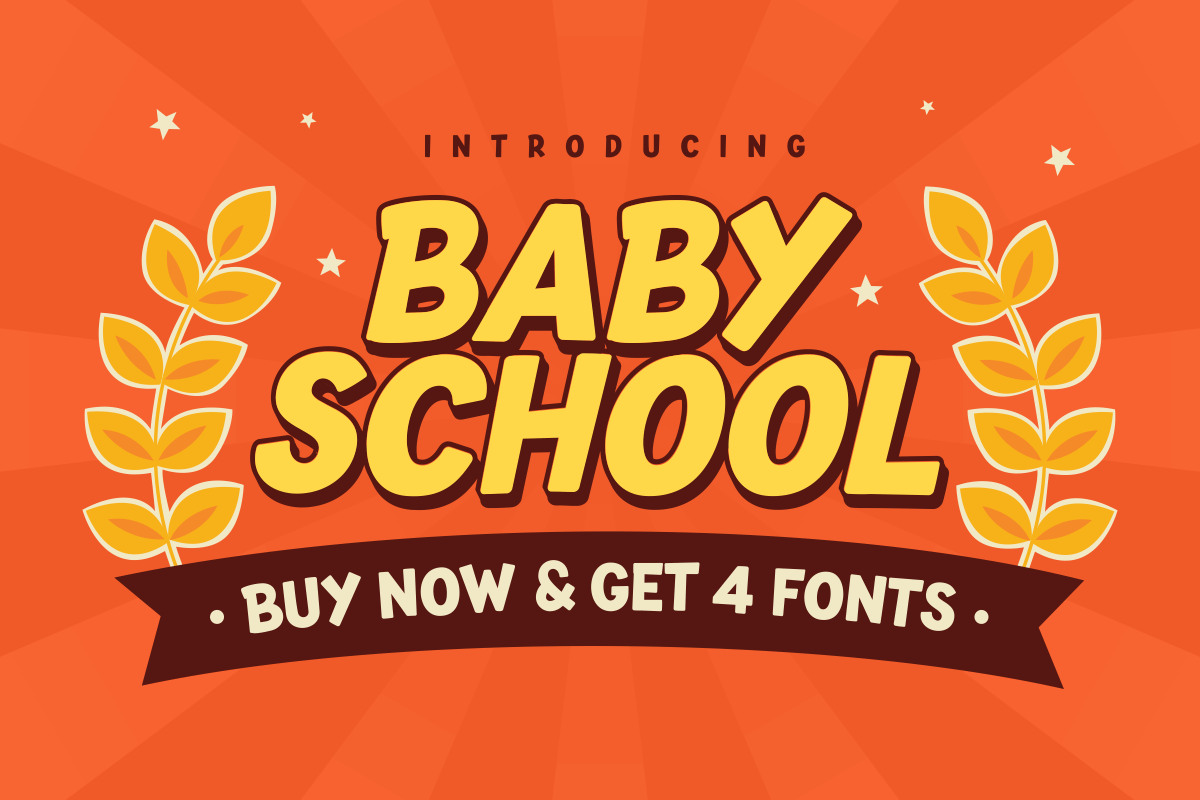
Baby School
-Playful Kids Display Font
Baby School - Playful Kids Display Font
Baby School is a playful kids display font designed for fun and creative projects. Featuring rounded letterforms and a friendly visual style, this typeface brings a cheerful and approachable personality to children's designs.
Created with four unique font styles, Baby School is perfect for kids branding, game titles, educational materials, toy packaging, mobile apps, posters, comics, greeting cards, and playful digital designs.
With its rounded shapes and versatile characters, Baby School helps designers create engaging typography for projects that need a fun, youthful, and memorable appearance.
- Baby School Font Family